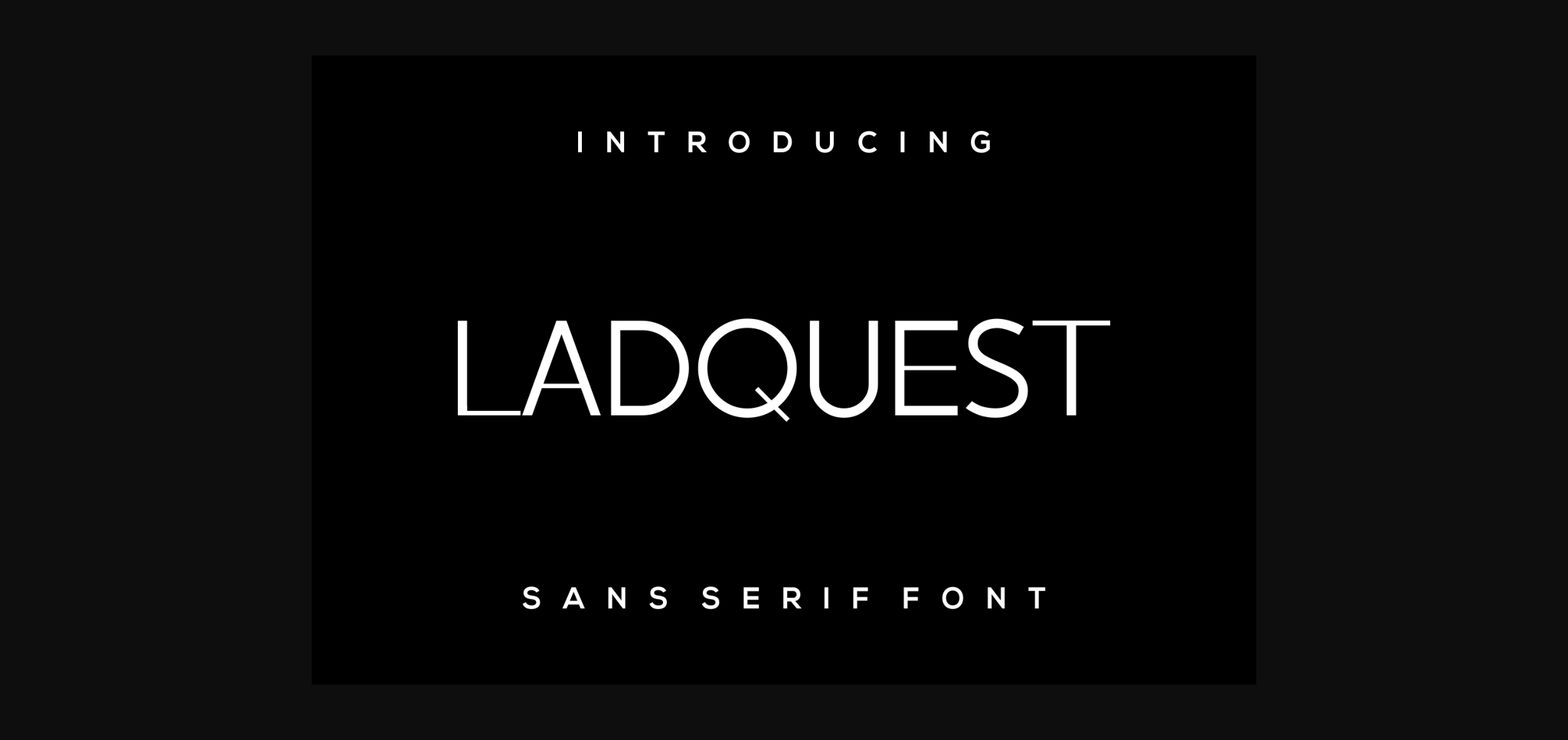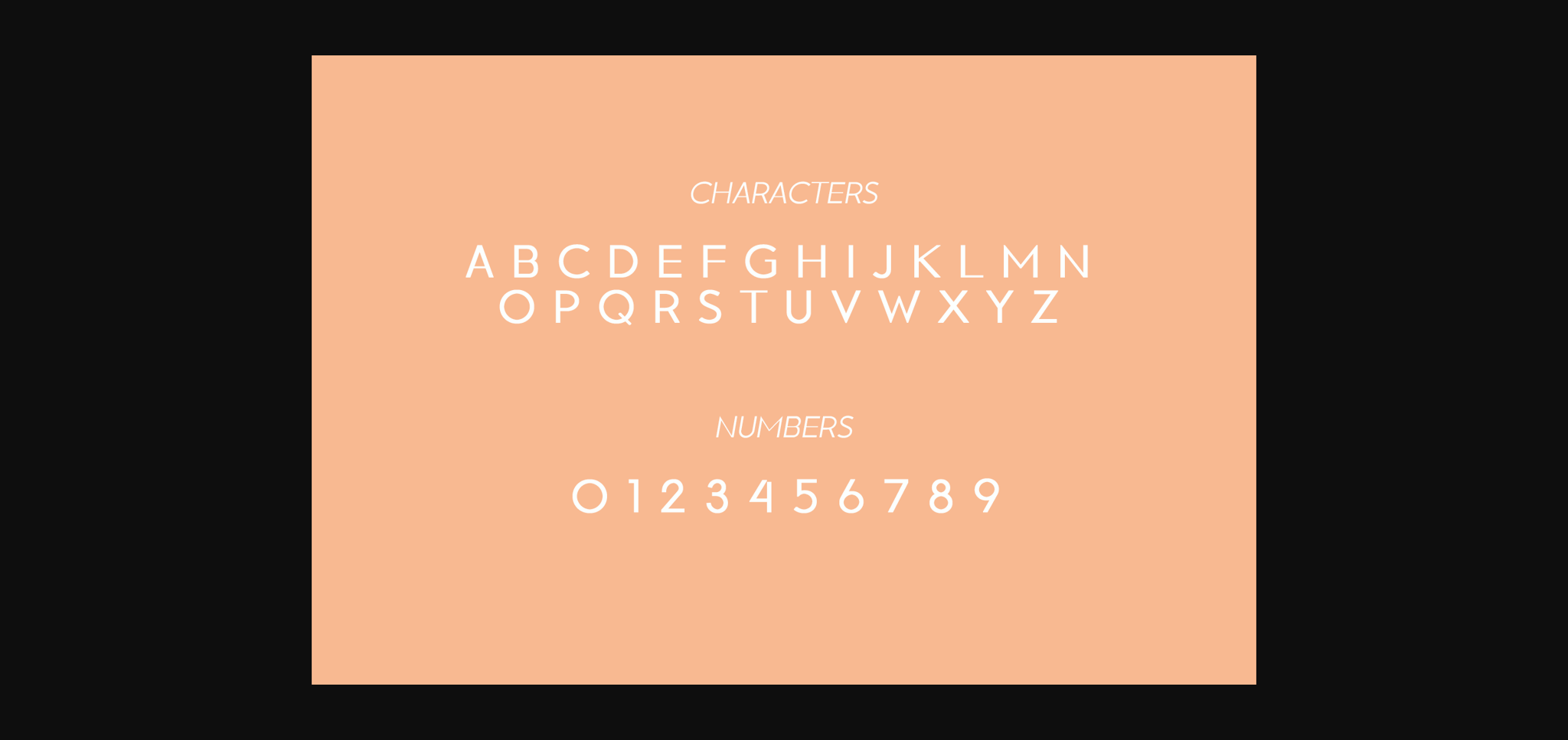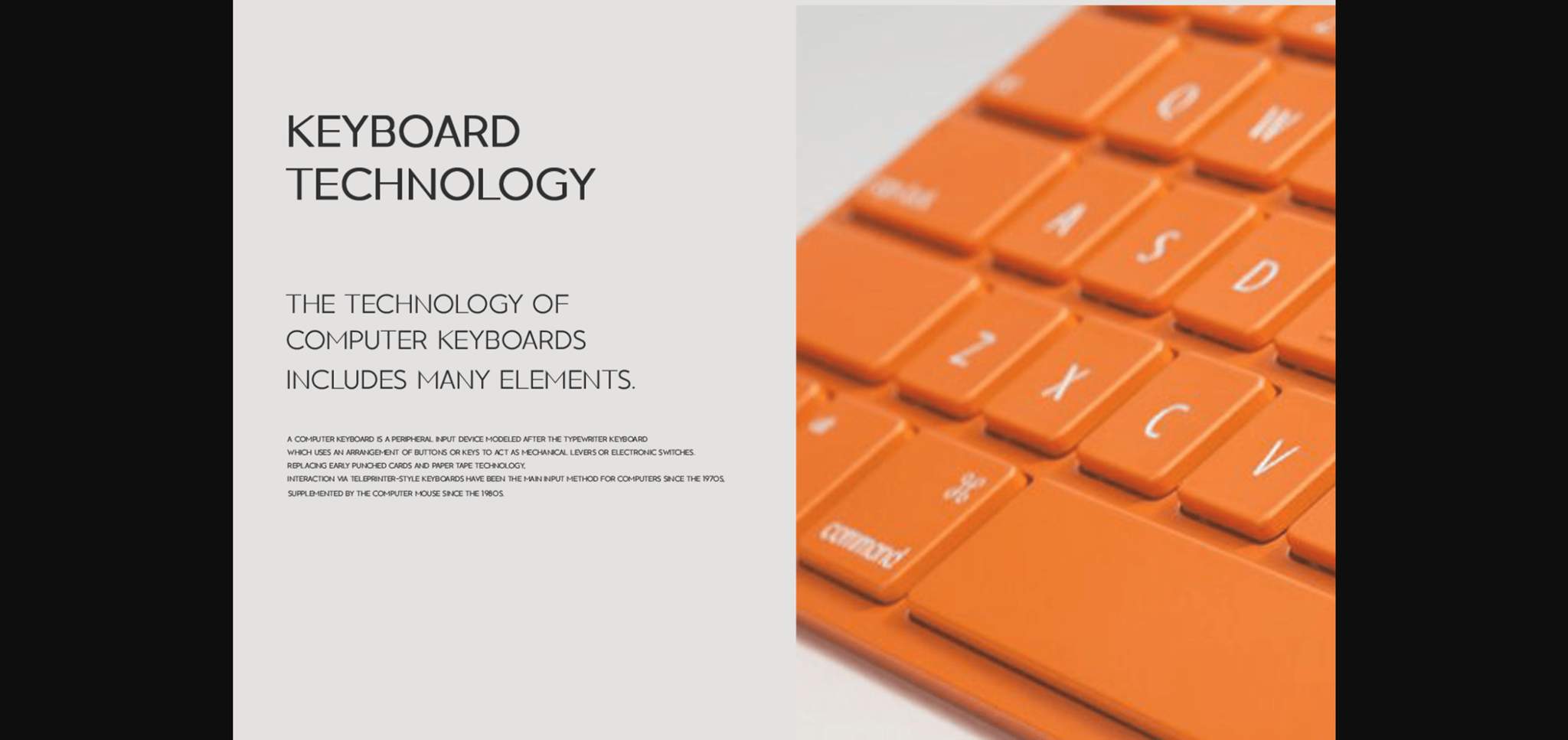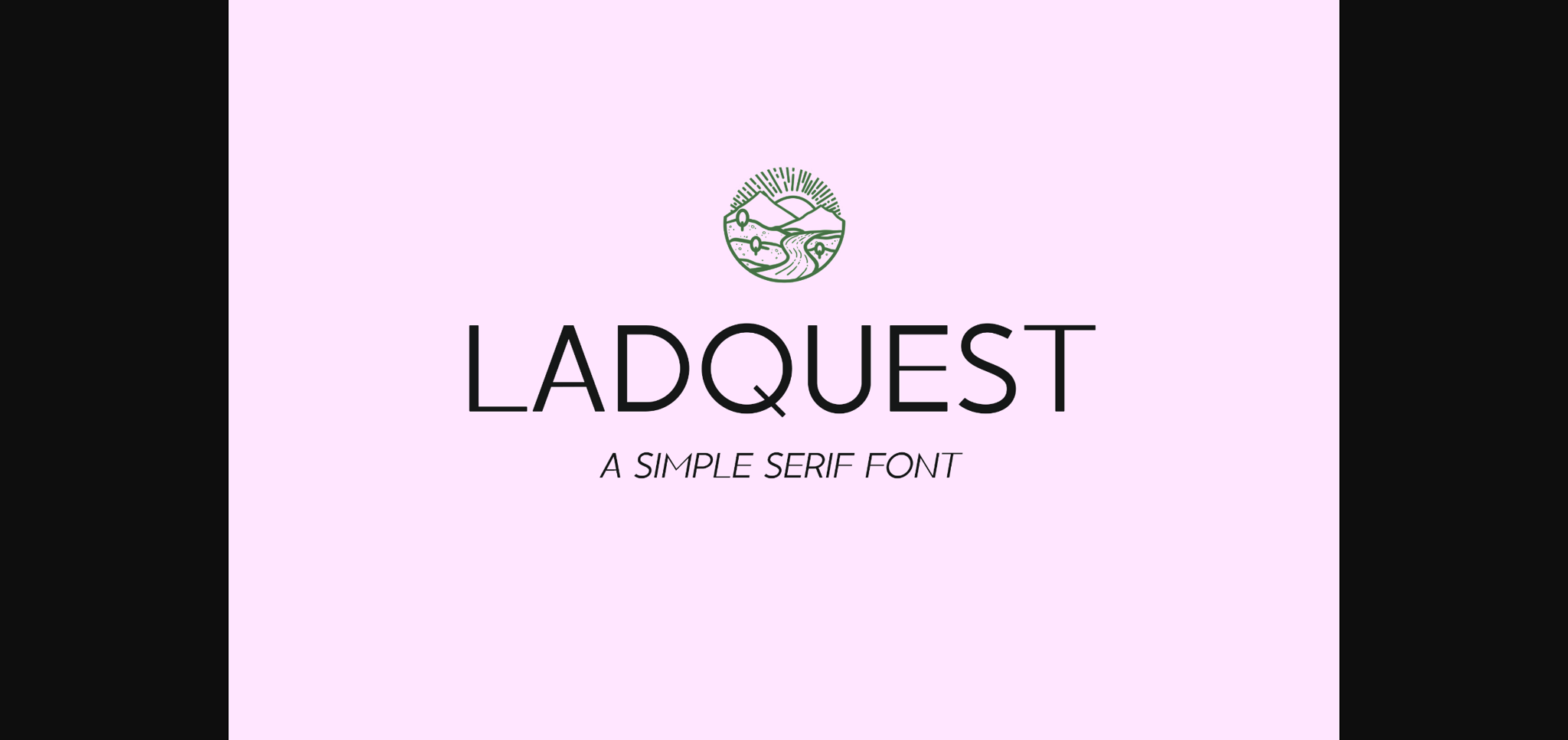
HomeSans Serif FontsLadquest Font Sans Serif Fonts Ladquest Font FacebookXPinterestWhatsApp 1 of 6 ... Ladquest Font Poster 2... Ladquest Font Poster 3... Ladquest Font Poster 4... Ladquest Font Poster 5... Ladquest Font Poster 6... About Ladquest Font Ladquest is a modern and stylish sans serif font. It has beautiful and well-balanced characters and as a result, it matches a wide pool of designs. DOWNLOAD NOW People also explored Big Day Font Amelia Font Sublimation Font Moment Pumpkin Font Morristone Font Caramel Font Mocktail Font Grunge Football Font Valentine Font 458 0 TagsLadquest Font Previous articleMugiwars FontNext articleKoretuve Font LEAVE A REPLY Cancel reply Comment: Please enter your comment! Name:* Please enter your name here Email:* You have entered an incorrect email address! Please enter your email address here Website: Save my name, email, and website in this browser for the next time I comment. Personal Use Free Doriath Personal Use Free Read more about this font Remember Personal Use Free Read more about this font Zelega Zenega Personal Use Free Read more about this font Caramel Latte Personal Use Free Read more about this font BLOG Best Fonts for YouTube Videos: Make Your Thumbnails Stand Out Best Fonts for YouTube Videos: Make Your Thumbnails Stand Out Choosing the right font can make a massive difference in how your YouTube videos perform.... Best Fonts for T-Shirt Design – Top 2025 Picks To increase your work productivity, choose the most readable fonts. How to Install and Use Fonts on Windows, macOS, and Web Projects